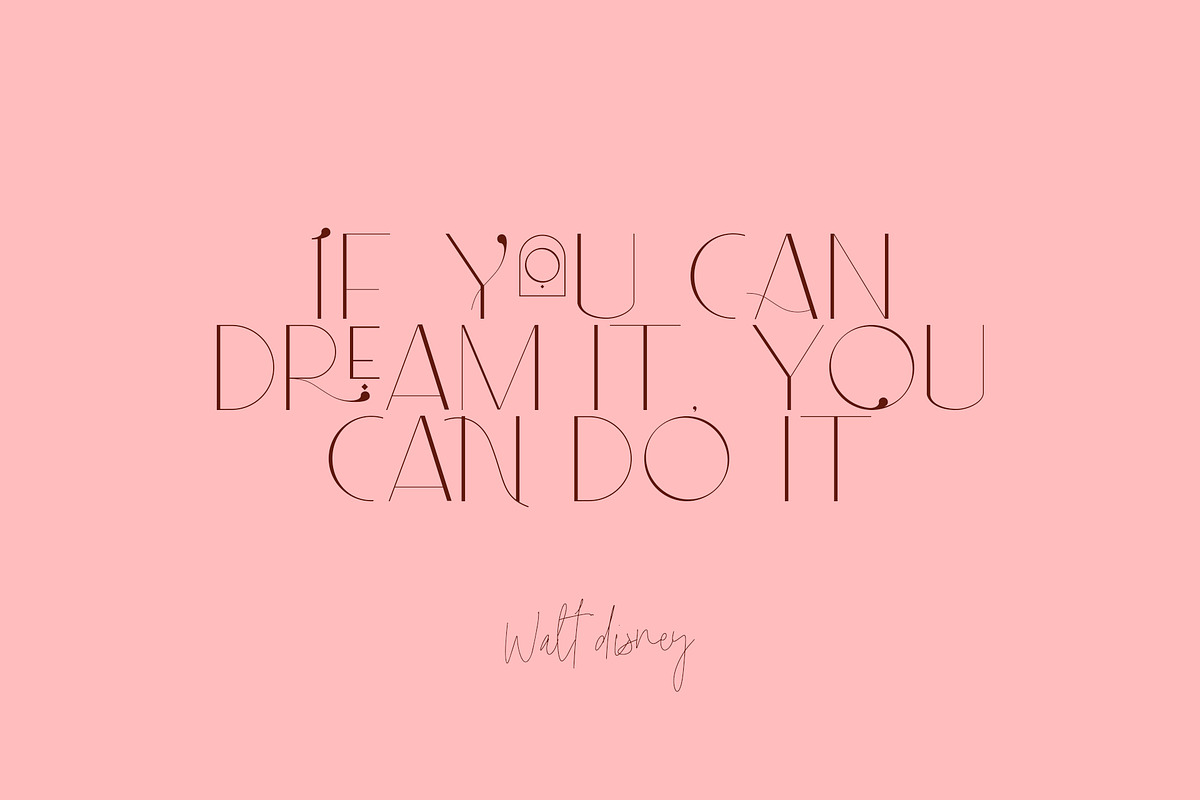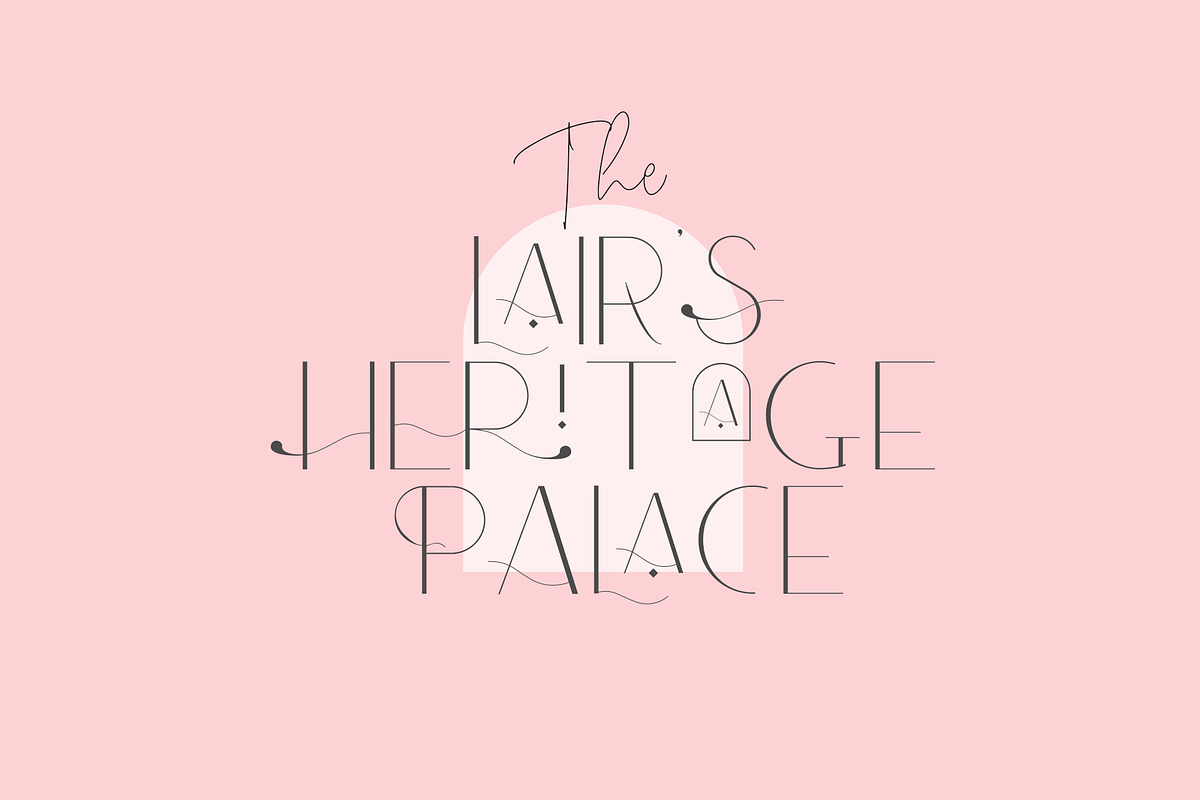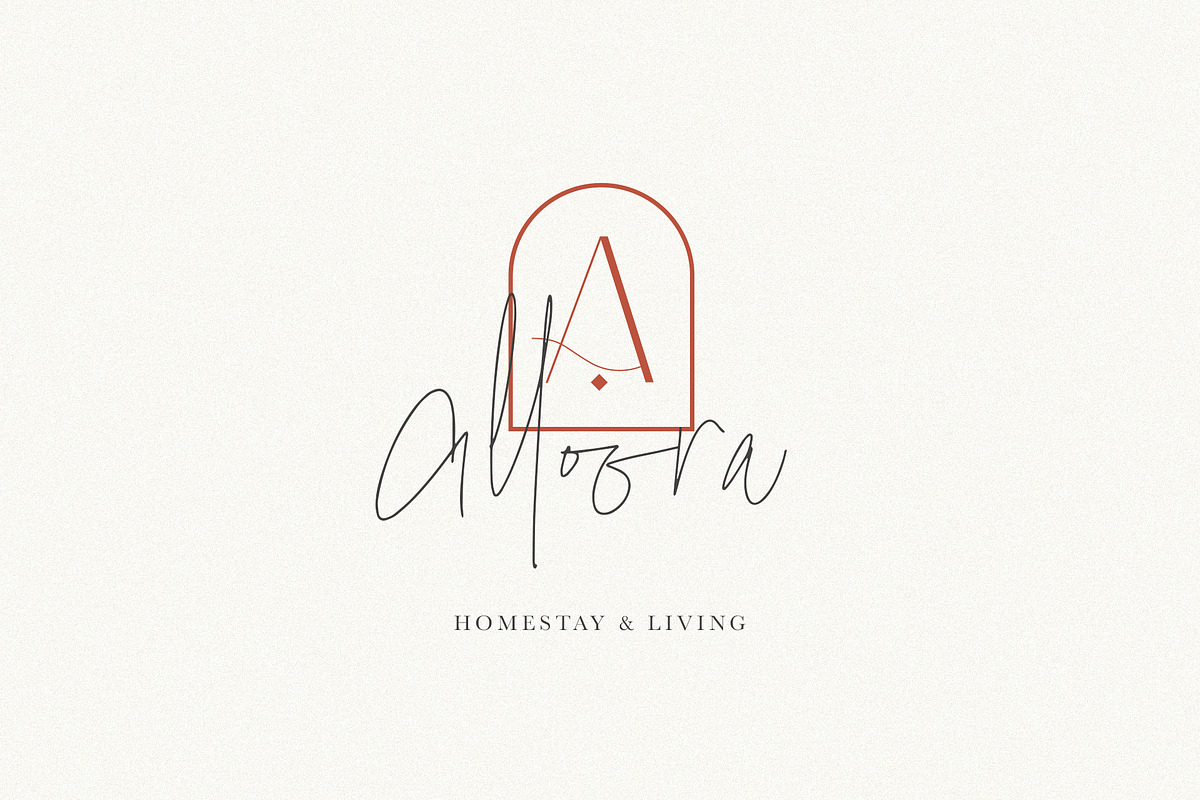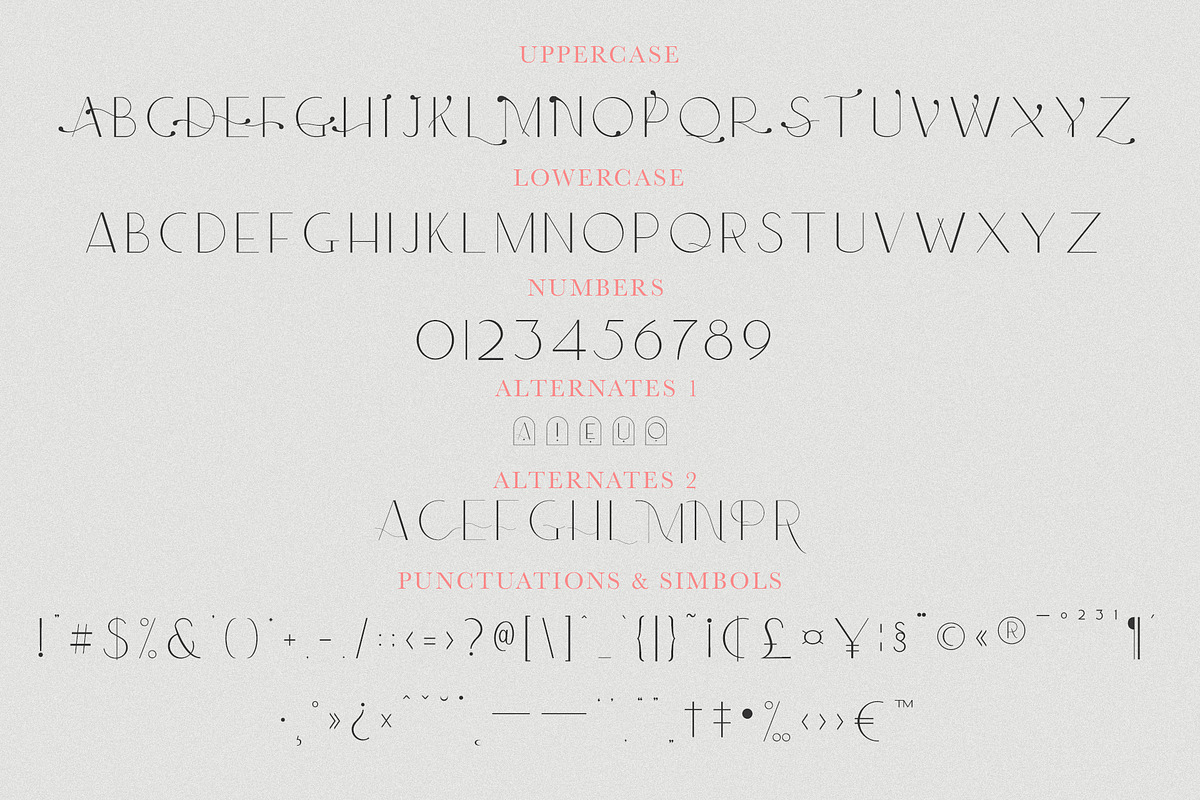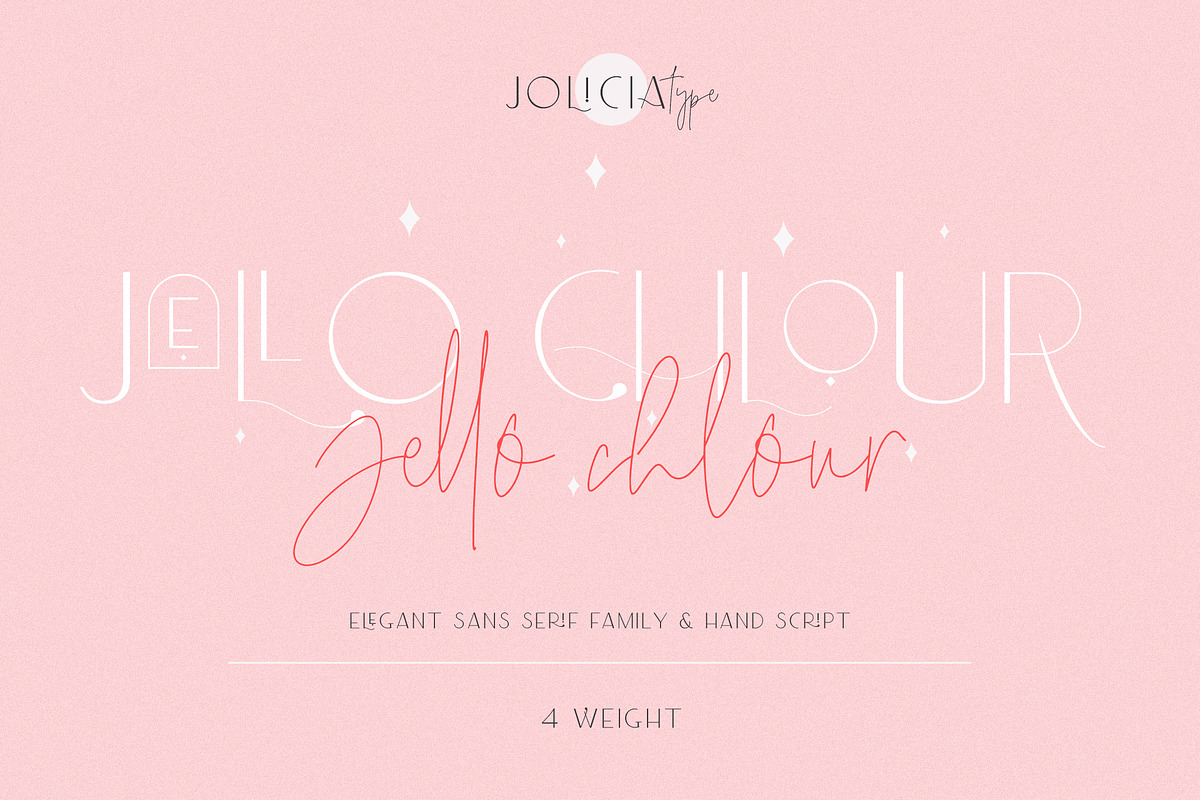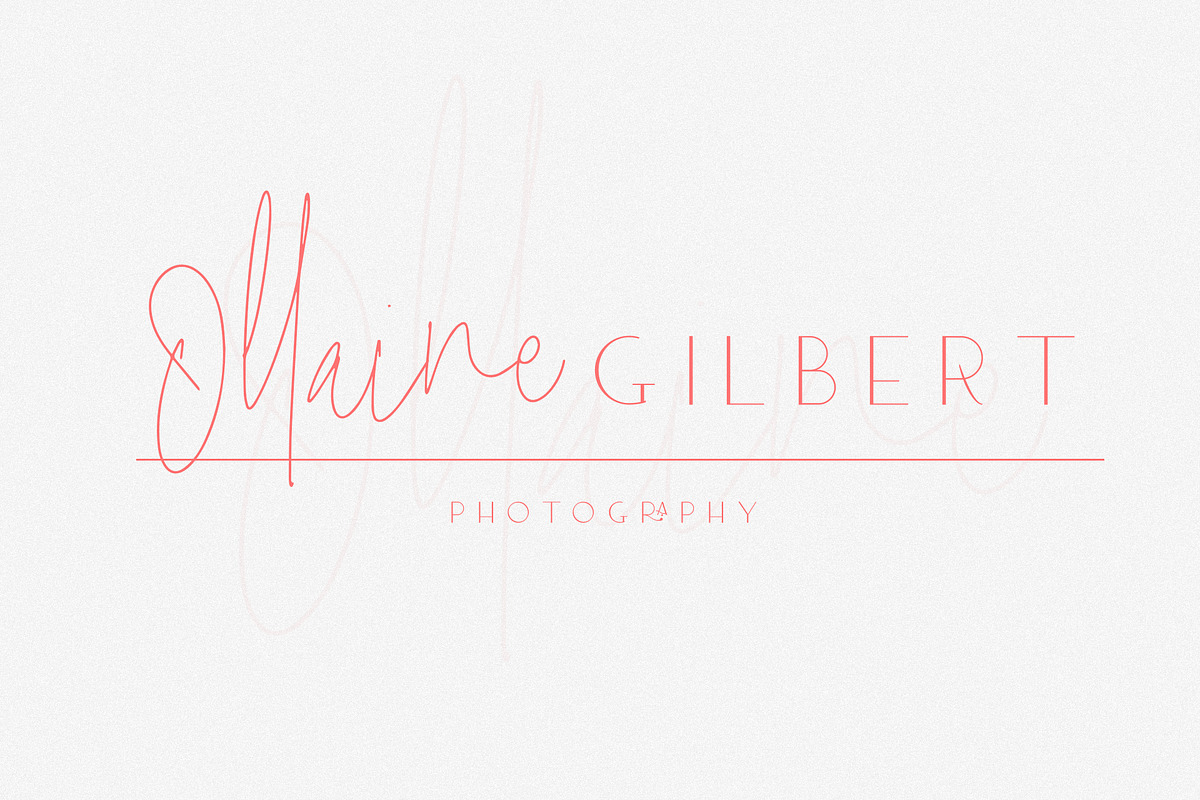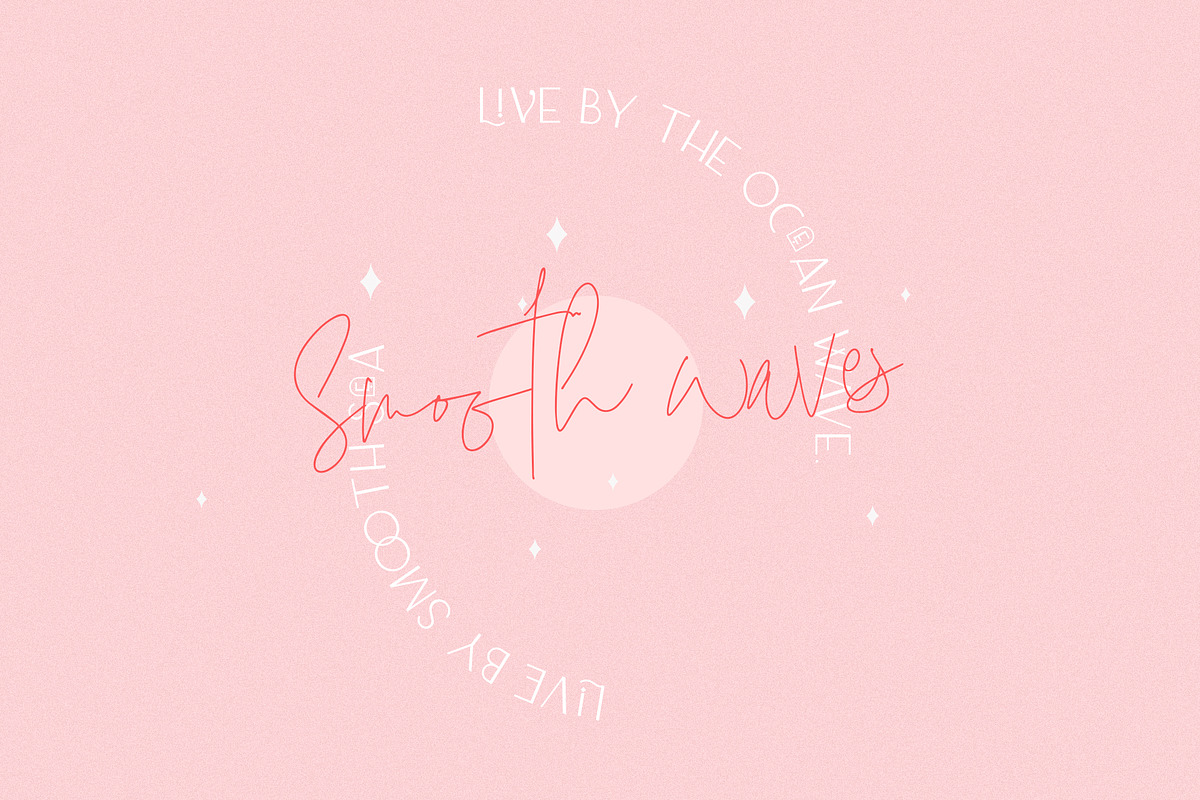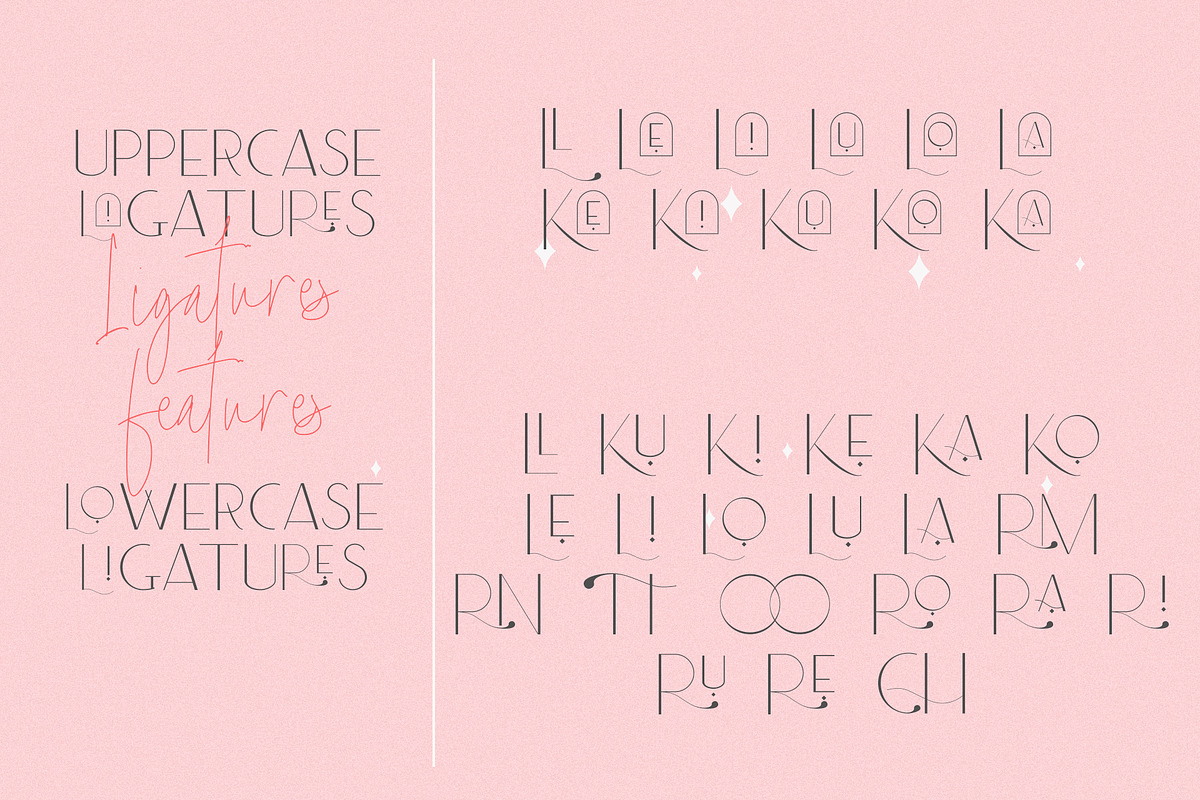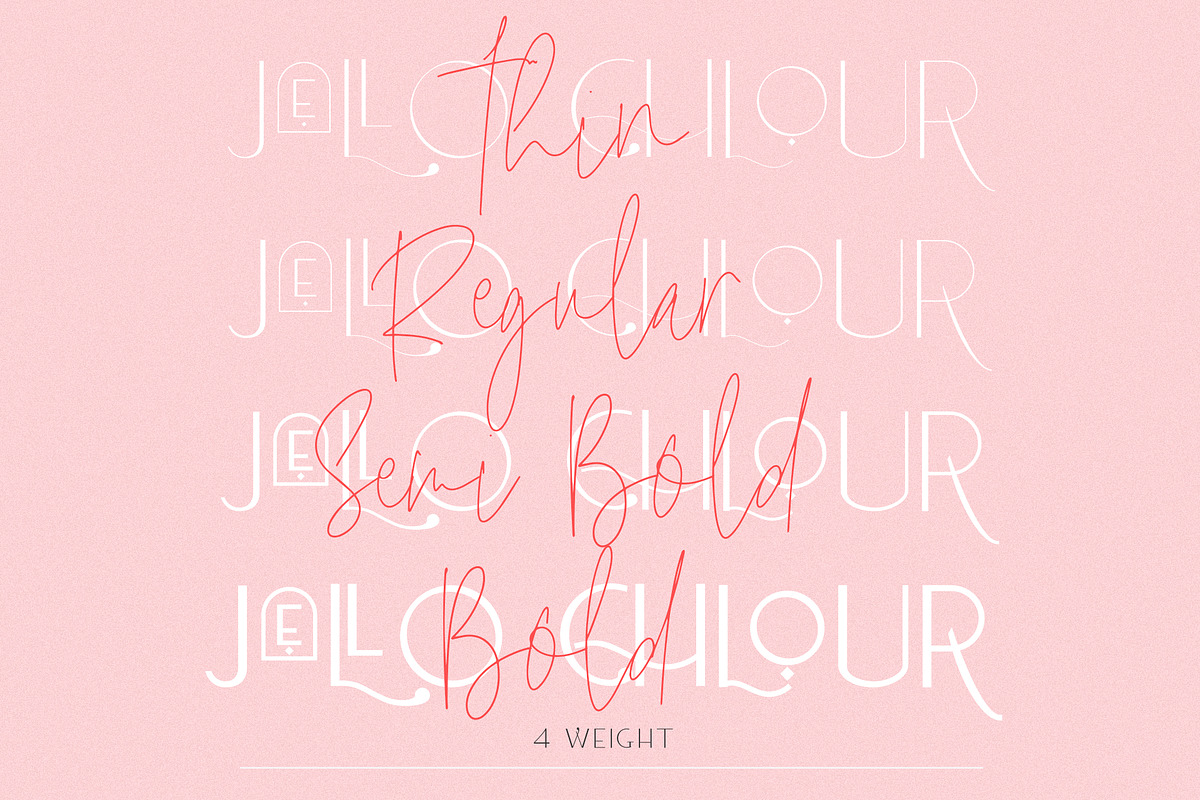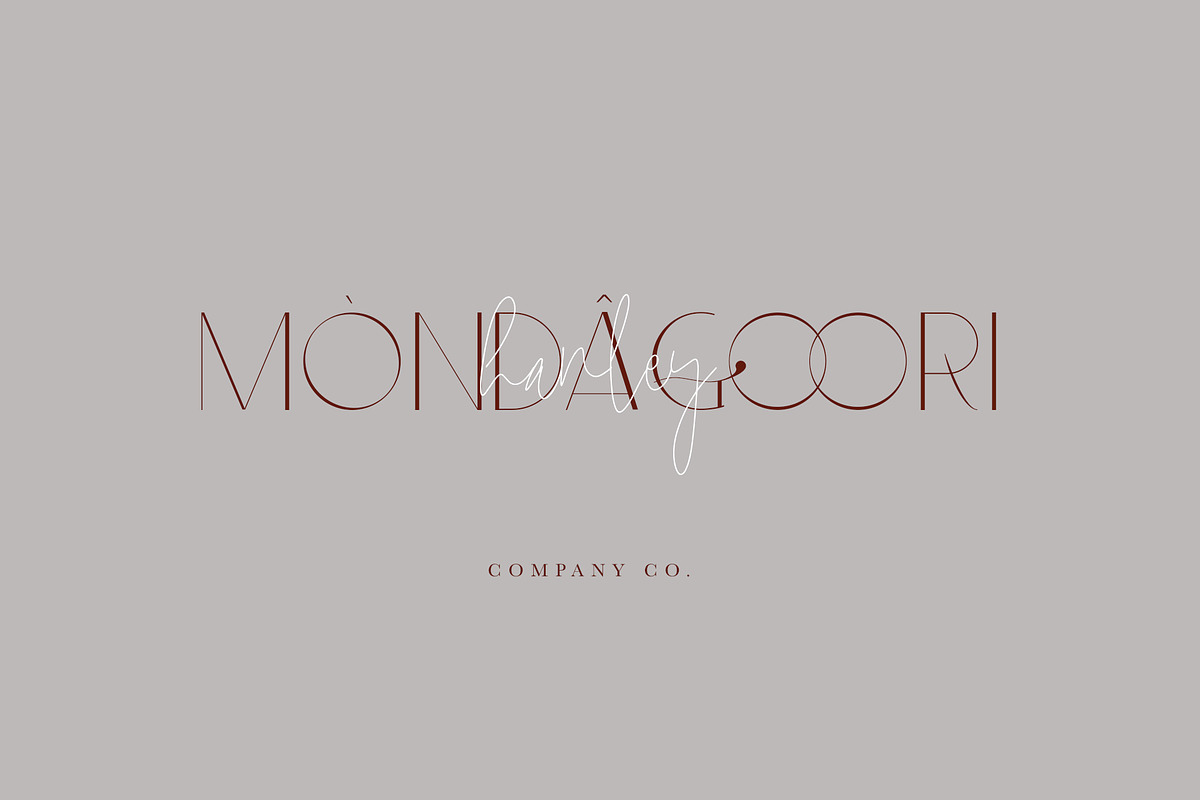
Jello Chlour
Say hello for our first debut "Jello Chlour " with Modern Elegant Style this is perfect for branding, logos, invitation, masterheads and more.
Jello Chlour Features :